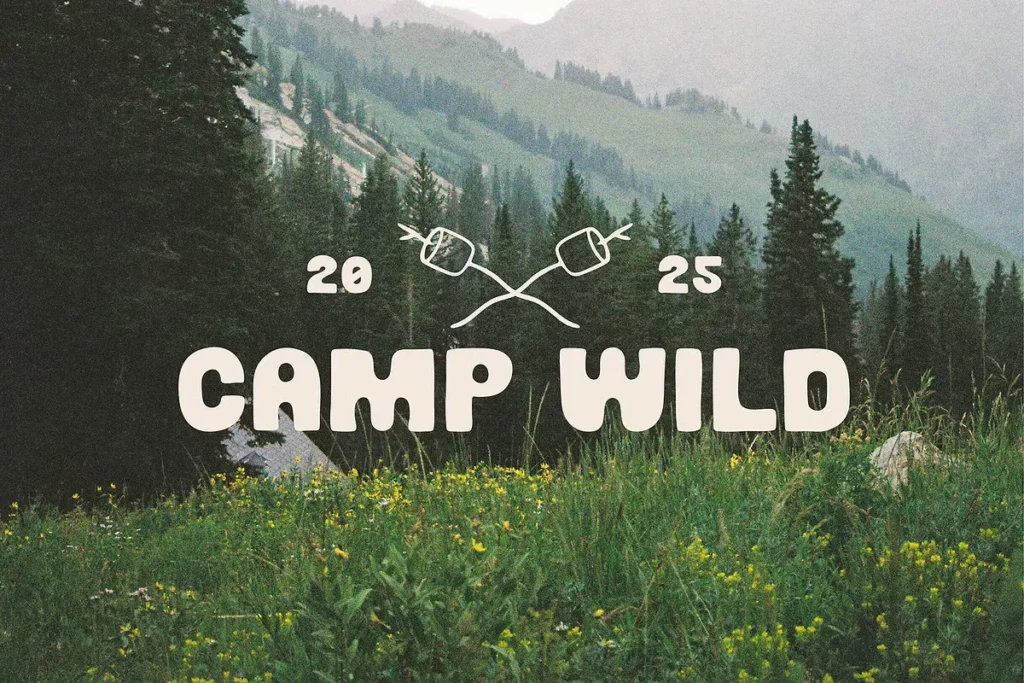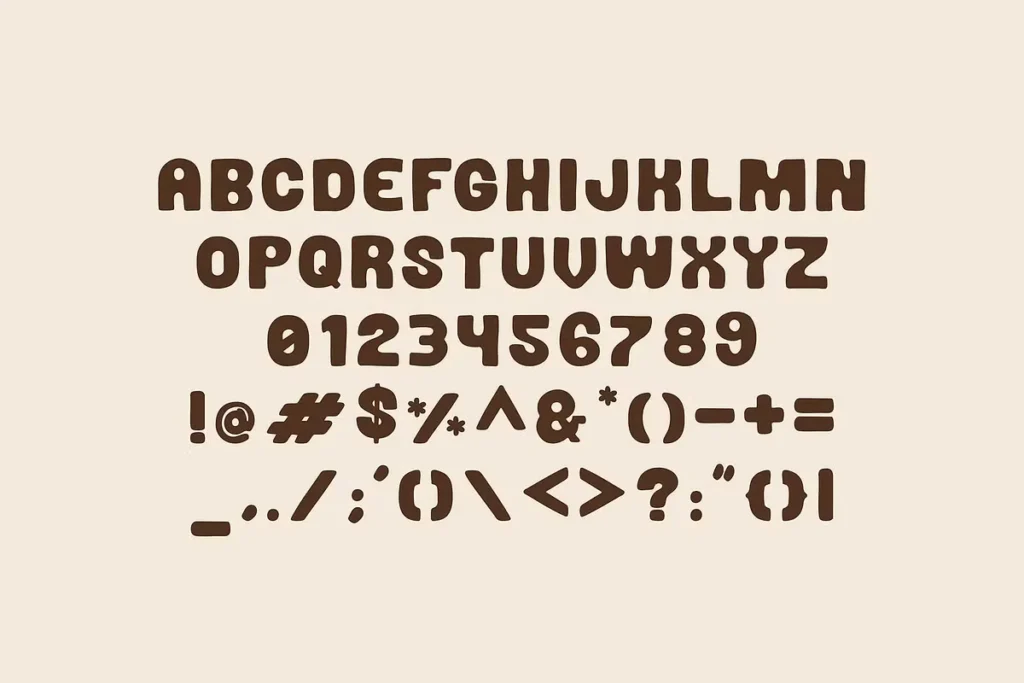
If you’re looking for a typeface that brings a sense of adventure, nostalgia, and creativity to your designs, Wanderwood is the perfect choice. This free hand-drawn sans serif display font captures the essence of retro summers, outdoor adventures, and cozy campfire nights. Its handcrafted look and playful character make it stand out as more than just a font—it’s a mood and a story waiting to be told.
Wanderwood carries a bold yet approachable design, giving off vintage charm while still staying versatile for modern use. The imperfect, hand-drawn strokes evoke a natural and organic feel, making it a great option for projects that aim to be personal, adventurous, or outdoorsy. Whether you’re designing for a summer camp, an outdoor brand, or simply want to bring a warm, rustic vibe into your work, this font delivers with style.
Ideal for logos, branding, posters, product packaging, apparel, and social media graphics, Wanderwood helps your designs feel authentic and memorable. It’s especially effective in projects that revolve around nature, travel, camping, and retro-inspired aesthetics. Its bold and playful energy ensures that your text captures attention without sacrificing readability.
Wanderwood Free Hand Drawn Sans Serif Display Font